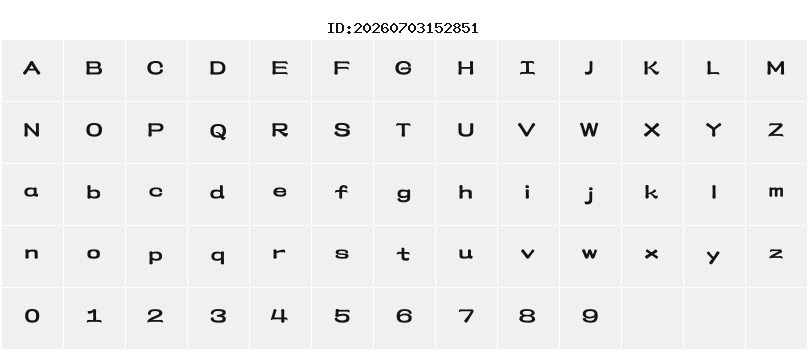
334-上首锦云体 Preview
• Font Name: 334-上首锦云体
• Font ID: 334-SSJinYunTi:Version 4.00
• Full Font Name: 334-上首锦云体
• Version: Version 4.00 May 31, 2024
• PostScript Name: 334-SSJinYunTi
• Character Count: 7567
• Manufacturer: 上首造字
About 334-上首锦云体.ttf
334-上首锦云体.ttf is a modern, elegant sans-serif font designed for ultimate readability and visual harmony. Perfect for branding, headlines, web design, and print materials.